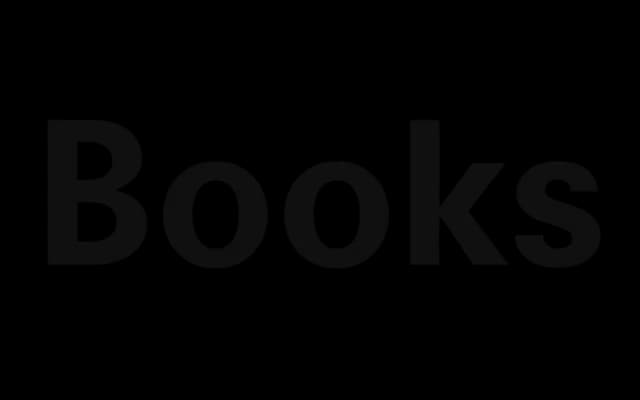
Agipo
Radim Pesko · Radim Peško · 2014
An elementary grotesque by Radim Peško with two stylistic sets — southern (round) and northern (square) — that inflect the typeface like a regional accent.
Designed between 2011 and 2014, Agipo offers three weights with italics and three additional styles, all extended by northern and southern stylistic sets that swap in alternative characters and punctuation to gently shift the texture of text. The dual-set approach gives designers tonal range without changing the typeface's fundamentally plain character. It covers both Latin and Cyrillic scripts, and has been used in headlines for The New Yorker.
Described as an elementary sans serif with plain character; its neutral structure and stylistic alternates place it firmly in the grotesque tradition, with subtle regional inflections via its southern (round) and northern (square) character sets.